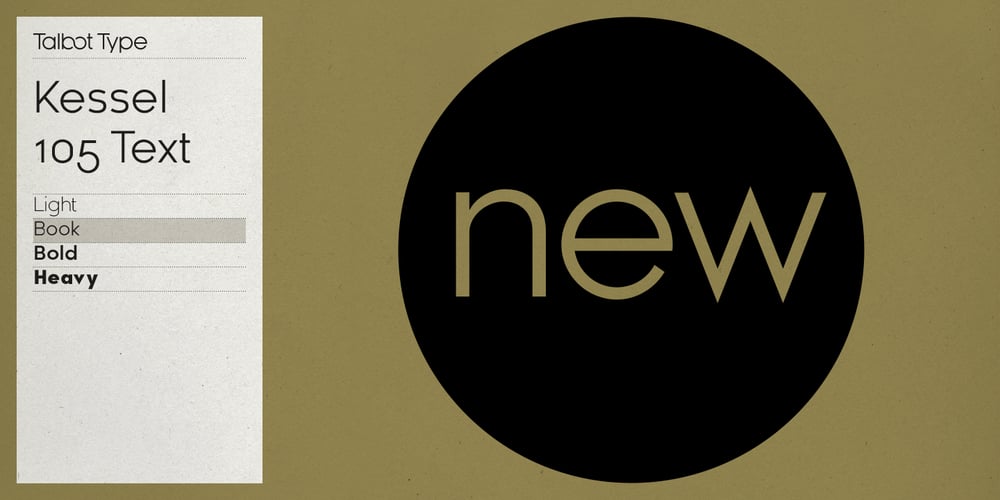
Kessel 105 Text Font Family was designed by Adrian Talbot and published by Talbot Type. Kessel 105 Text contains 8 styles and family package options. Kessel 105 Text is the text specific variation of stablemate, Kessel 105. With a narrower x-height and longer ascenders and descenders, its more traditional proportions make it more economical with space and better suited to continuous text. It’s a versatile, modern sans, highly legible as a text font and with a clean, elegant look as a display font at larger sizes. It has an art deco flavour with sharp points at the apex of many characters. The Kessel 105 Text family comprises of four weights and includes old style non-aligning (lower case) numbers, both proportional and tabular as well as accented characters for Central European languages.